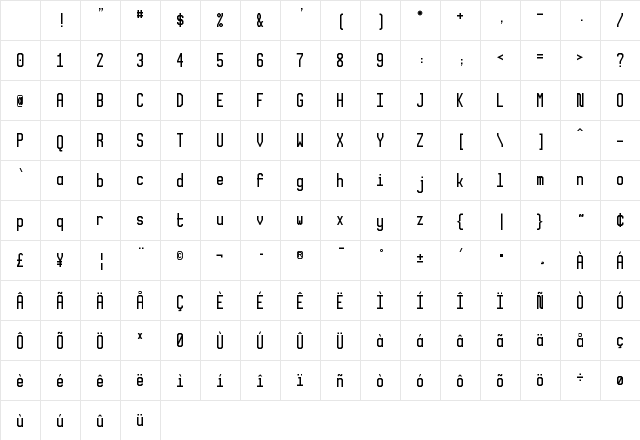
Complete XLMonoAlt Regular glyph index. Displaying only characters natively supported by XLMonoAlt Regular font.
XLMonoAlt uses fixed-width spacing throughout, giving it the structured, systematic character associated with coding environments and technical documentation.
Pro Tip: Use XLMonoAlt with slightly increased line-height for extended reading - fixed-width spacing can feel dense in longer passages without extra breathing room.